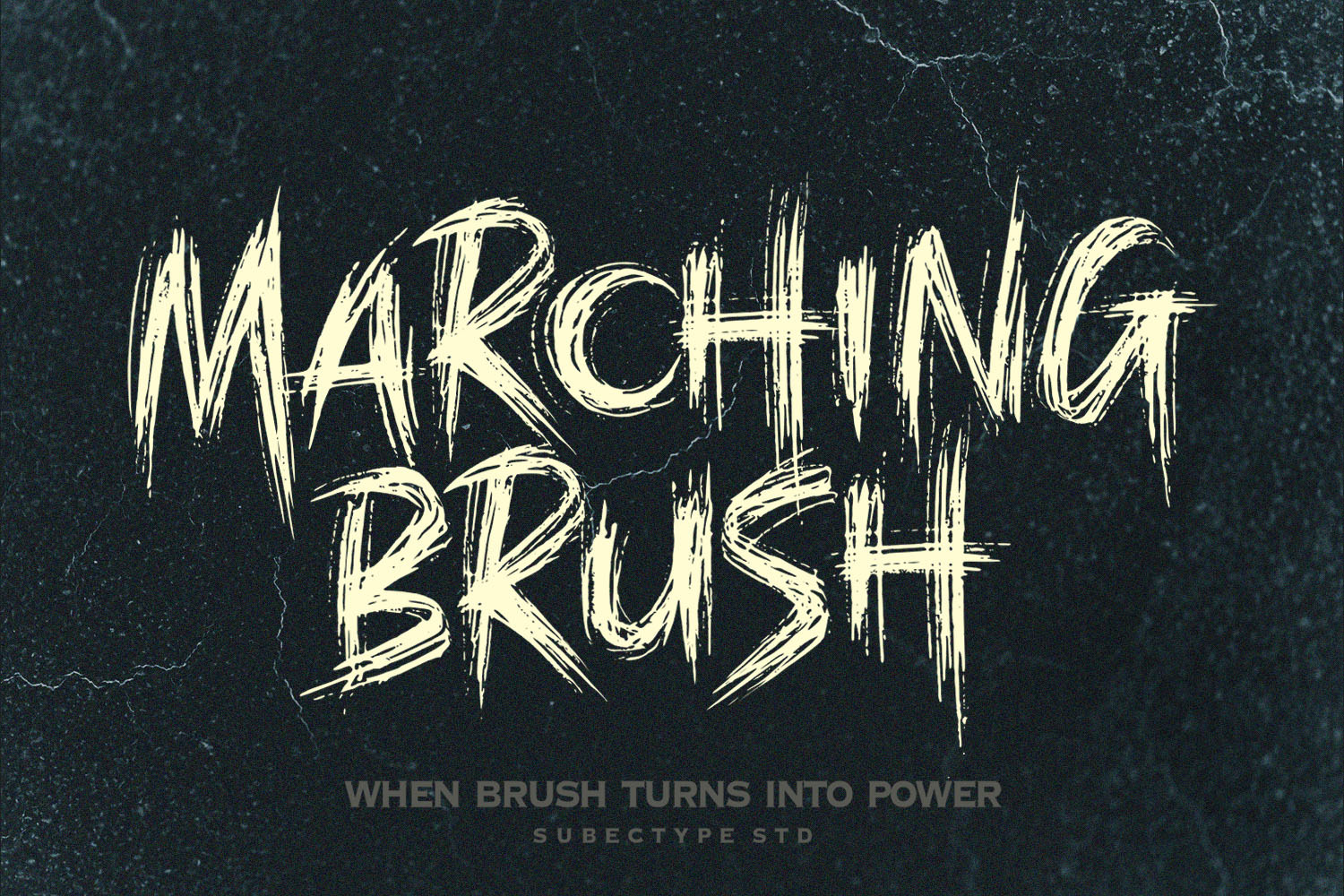
Marching Brush - Horror Brush Font
Say hello to "Marching Brush". This brush font strikes with raw power, energetic, and dripping with horror vibes. Its hand painted strokes create an intense, chaotic feel, perfect for posters, album covers, or branding that demands attention. The rugged texture and sharp edges embody a dark, untamed energy, making it ideal for horror themes, thrillers, or any design that craves a strong power.